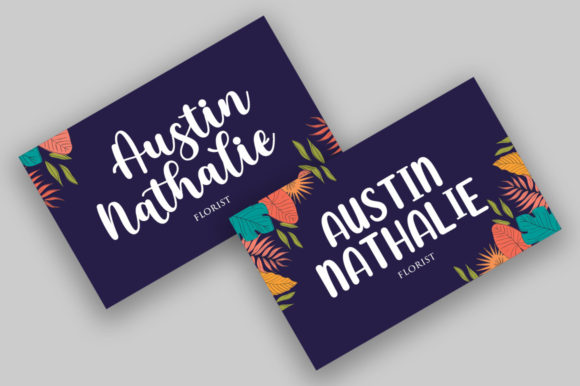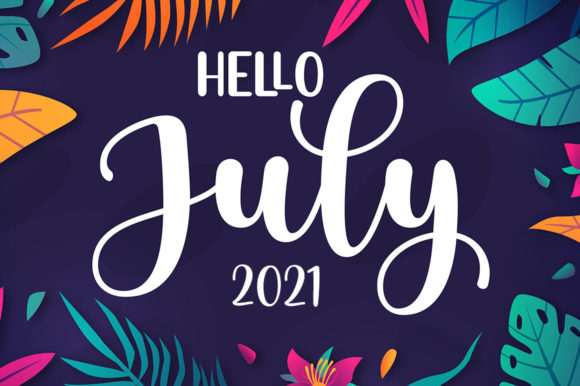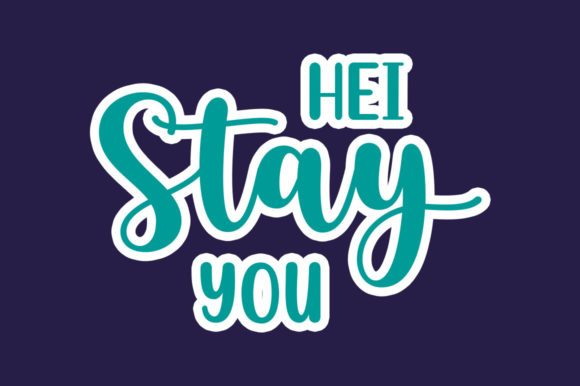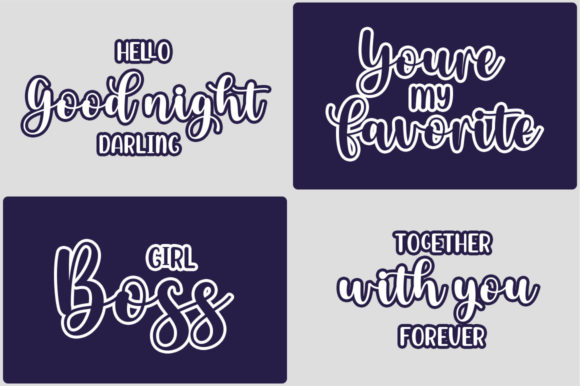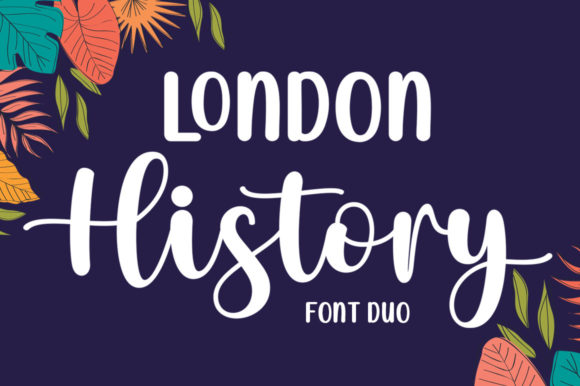
London History Duo Font
London History Duo is a beautiful and cursive combination of display and script font. It is PUA encoded which means you can access all glyphs and swashes with ease!